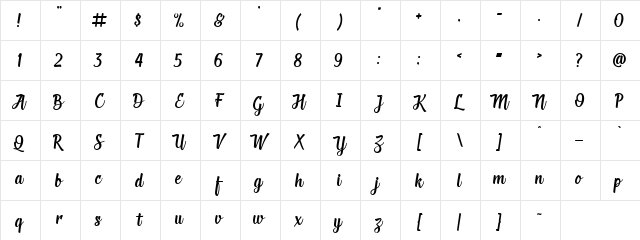
Deadhead Script Regular
Design Context for Deadhead Script Typeface
Deadhead Script brings a calligraphic fluidity to the page — its connecting strokes and expressive curves give it an unmistakably human quality.
Font Pairing: Combine Deadhead Script with a simple geometric sans for maximum contrast — the tension between flowing curves and clean structure is a classic typographic pairing.
Pro Tip: Pair Deadhead Script with a clean sans-serif for supporting text. The contrast between fluid script and geometric structure creates an elegant typographic hierarchy.